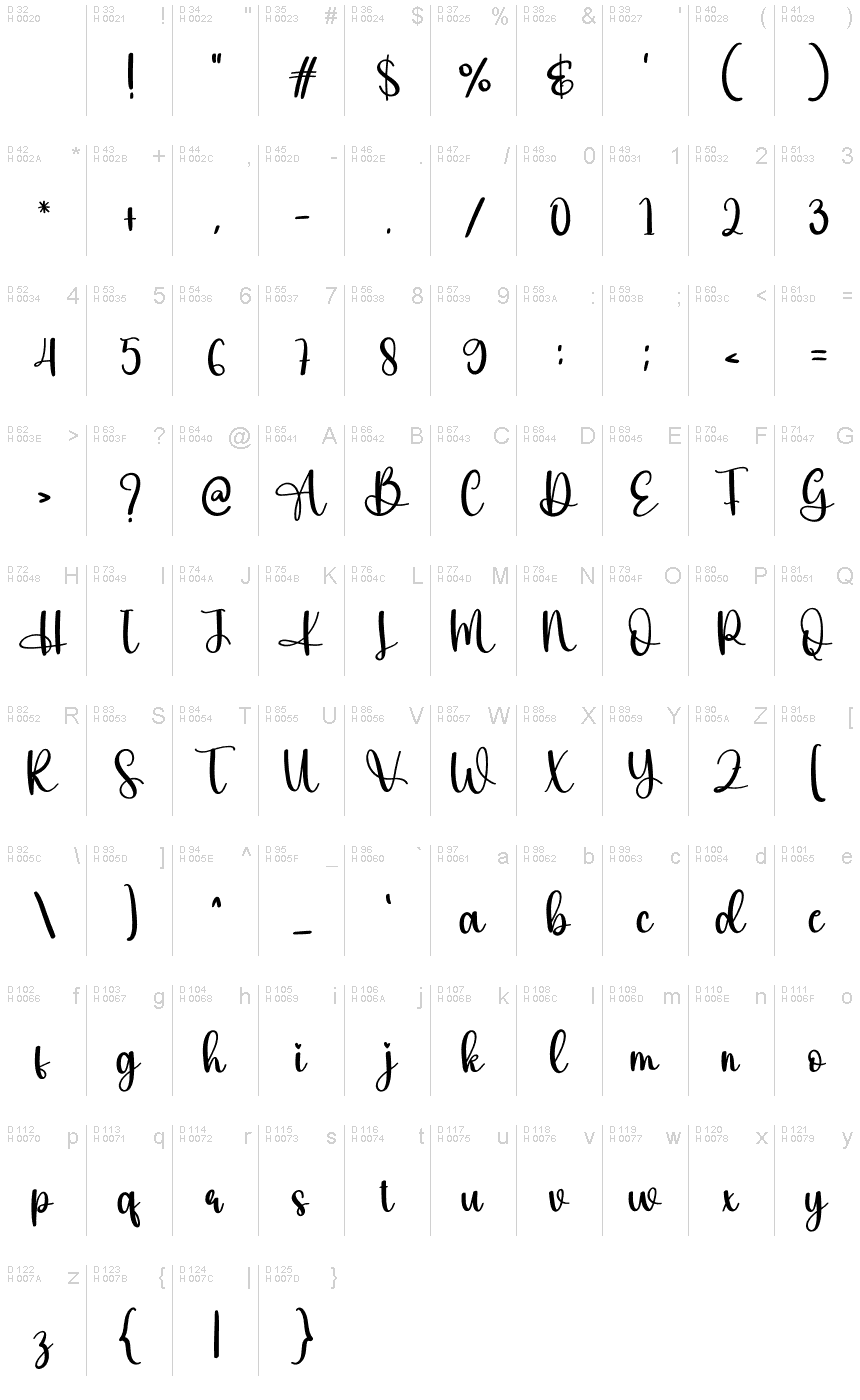
Chilli
Chilli, an exquisite calligraphy font crafted by scratchones, exudes elegance and sophistication. With its graceful strokes and intricate details, this font is perfect for wedding invitations, greeting cards, and high-end branding projects. The versatile nature of Chilli allows it to seamlessly adapt to both formal and informal settings, making it an ideal choice for fashion magazines, luxury packaging designs, and upscale restaurant menus. Whether you're looking to add a touch of refinement or create a memorable impression, Chilli is the go-to font that will elevate your creative projects to new heights.
the latest style letters are perfect for wall displays, wedding invitations, social media post logos, advertisements, product packaging, product designs, labels, photography, watermarks, invitations, stationery, and any project that requires taste handwriting.